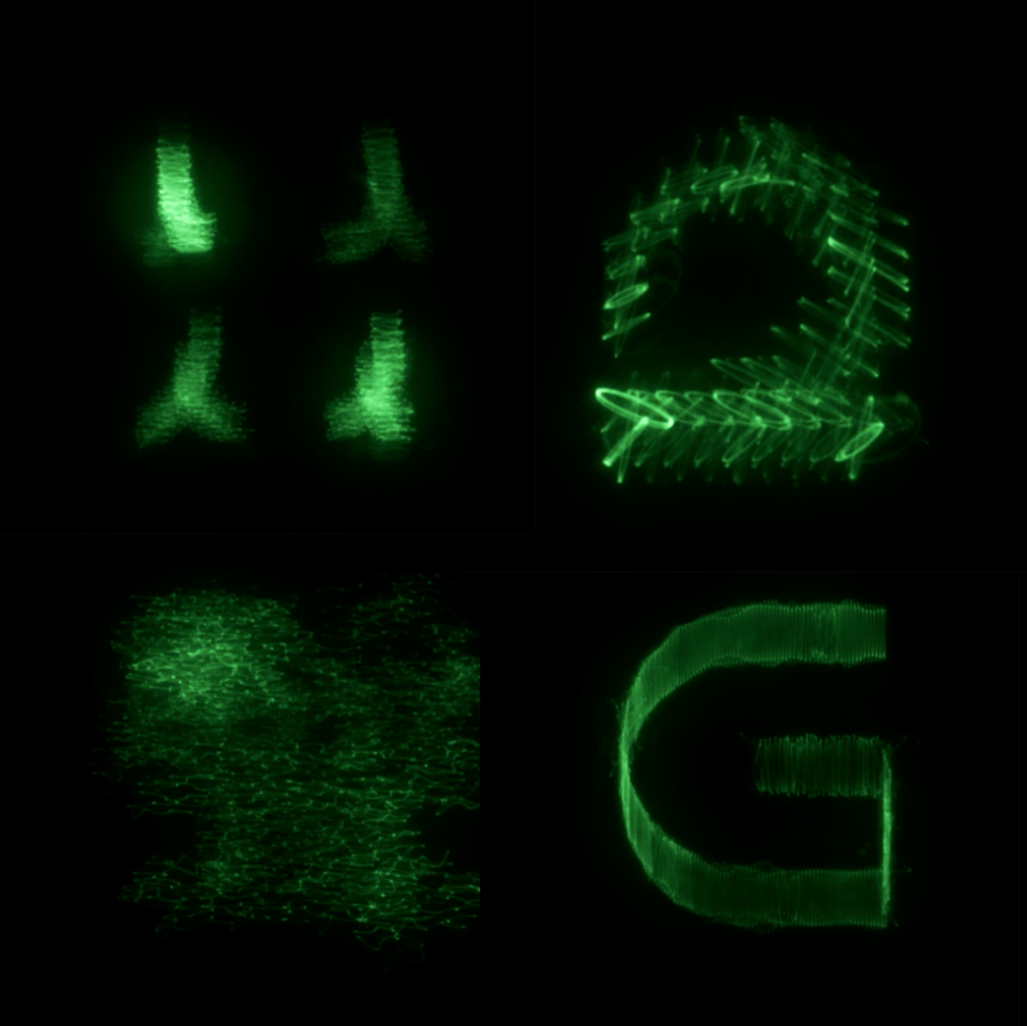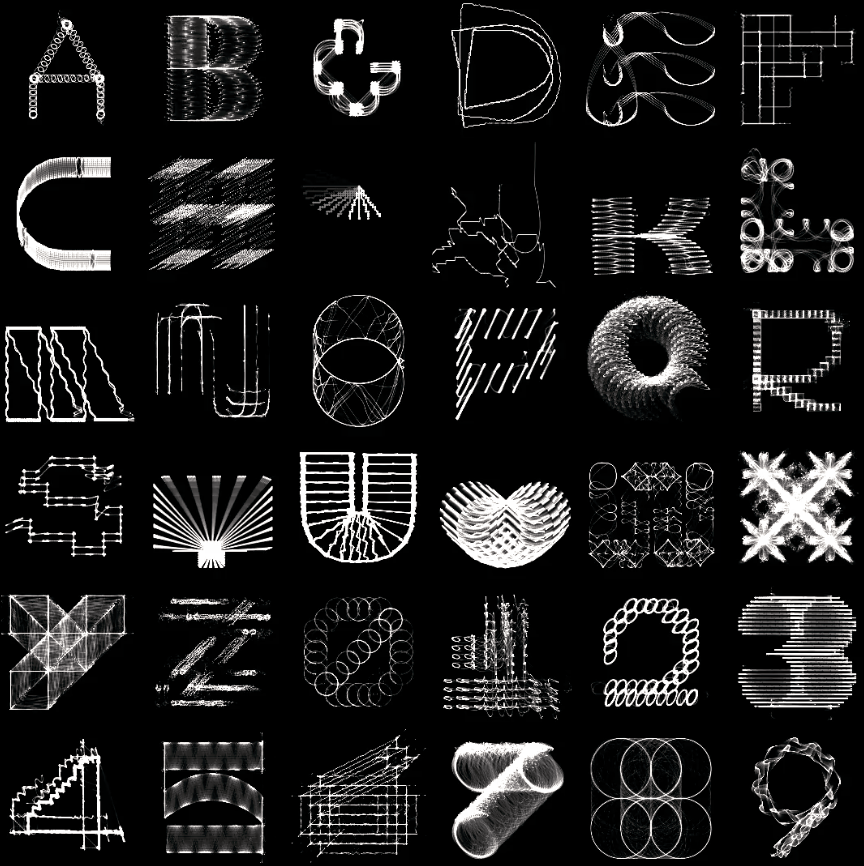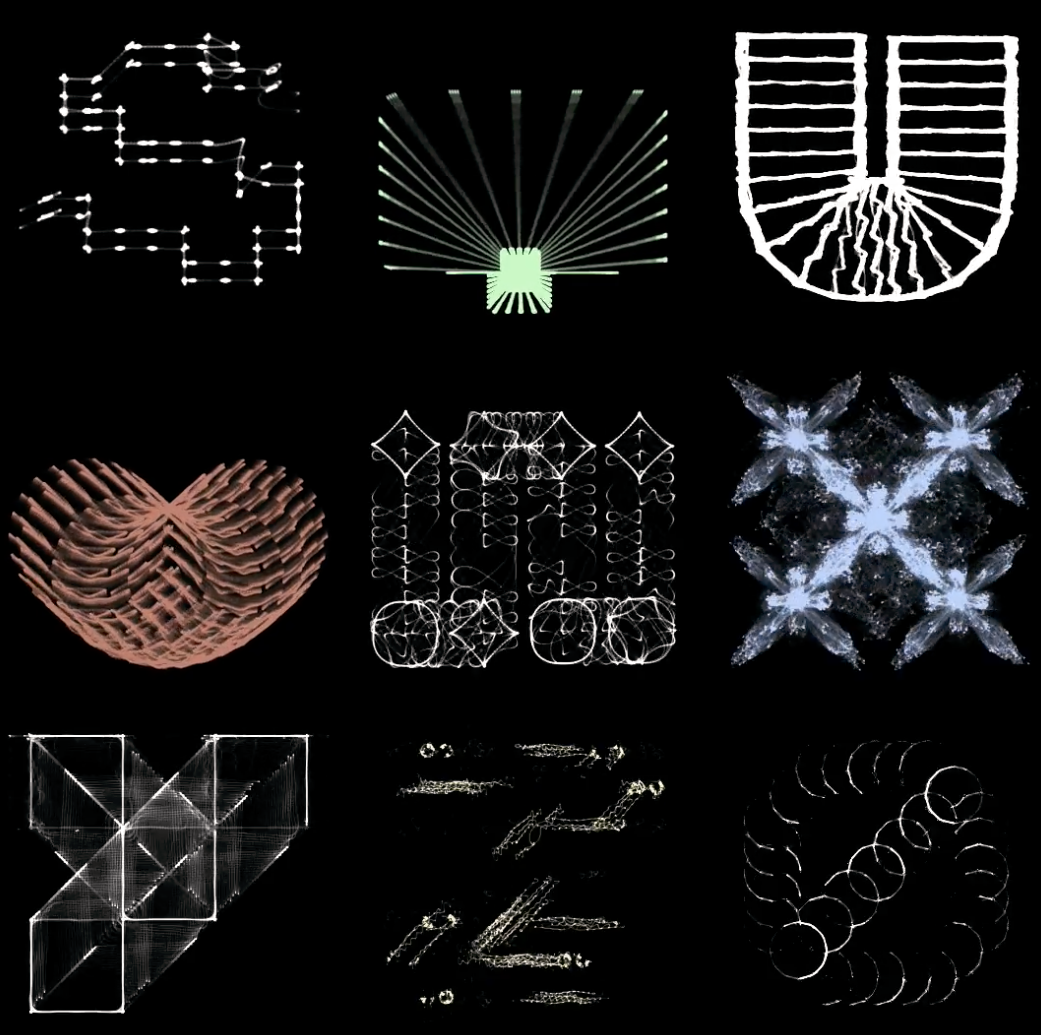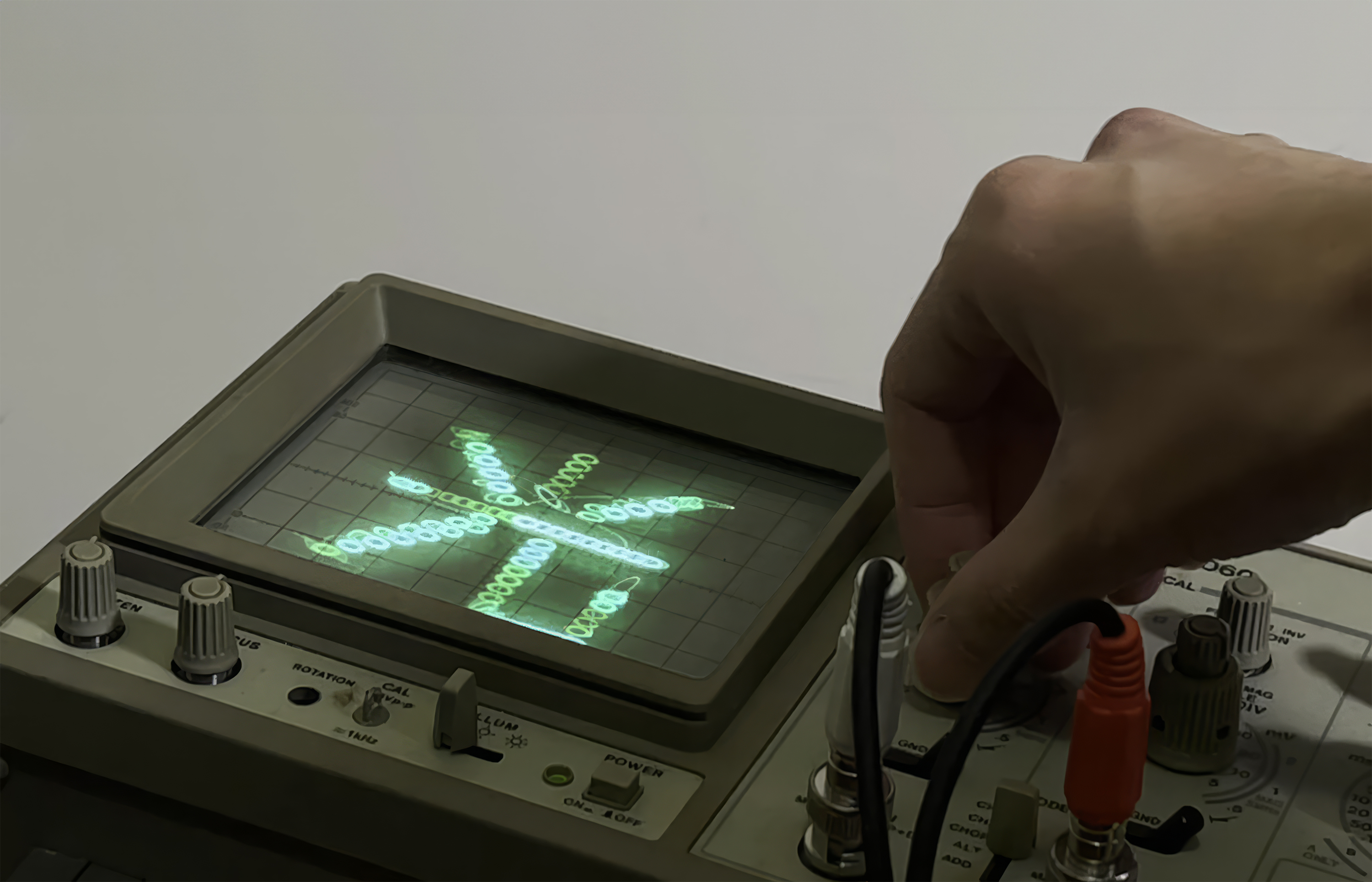
Blending Sound and Typography: The Art of Jonathan Mak
Jonathan Mak is a graphic designer hailing from the vibrant city of Hong Kong, where his creative projects stretch across branding, publication design, and multimedia art. His ability to seamlessly blend mediums and push the boundaries of traditional design makes him one of the most intriguing voices in contemporary visual culture.
One of his standout projects is the ongoing series “Sound Type”, which masterfully fuses his passions for sound, motion, and typography into something uniquely engaging. This project invites viewers to experience language not just as visual communication, but as a multi-sensory experience that resonates on multiple levels, combining the abstract beauty of type with the physicality of sound waves.
Mak's versatility extends beyond this signature work. By day, he designs motion-based video games at Nex, a tech startup that thrives on innovation and cutting-edge creativity. His practice exists at the intersection of play and precision, allowing him to explore the dynamic possibilities of motion and interactivity in both his professional and personal works. This duality of digital design and artistic experimentation has earned him recognition across the global design landscape, with accolades from the D&AD Awards, the prestigious Cannes Lions, and the Type Directors Club Awards, among others.
In this interview, we delve into the inspirations behind “Sound Type”, his thoughts on blending disciplines, and how his work at Nex informs his broader artistic vision. We also explore how growing up in Hong Kong, a city of constant reinvention, has shaped his approach to design and innovation. Join us as we uncover the layered world of Jonathan Mak, a designer whose work challenges the boundaries of typography, technology, and sound.
TR: “Sound Type” seems to beautifully merge your interests in sound, motion, and typography. Can you walk us through the inspiration behind this ongoing series and what you hope viewers experience through it?
JM: Sound Type uses audio waveforms to draw letters and graphics on an oscilloscope, a piece of equipment that displays electrical signals. It’s a medium used by musicians and artists to create audiovisual art, but seldom applied to a graphic design context, which was what inspired me to try. The idea of giving shape to what we hear draws an interesting connection to typography, which is about making language visible. The project experiments with different ways of transforming the written word through distorting sound, and explores the relationship between our eyes and ears. What you see is what you hear.
TR: Your work spans branding, publication design, and multimedia art. How do you balance such a wide range of creative outlets, and do you find that they influence one another in unexpected ways?
JM: As designers, we’re often told that we should adapt to each project’s needs, and not bring too much of ourselves into the work. While that’s true to a certain extent, I don’t think it’s a bad thing to acknowledge our own visual sensibilities, and embrace our stylistic tendencies when the situation calls for it. As I worked on different projects throughout the years, I can see myself developing a vocabulary that spans across different formats. In the case of Sound Type, a project heavily based on motion and audio, the rhythm of sound inspires me to reinterpret that into a different kind of visual rhythm when doing printed work. Regardless of the discipline or medium, I’d like to think there’s an underlying energy throughout my projects, just expressed in different ways.
TR: You’ve received recognition from prestigious institutions like D&AD and the Cannes Lions. What impact do these accolades have on your creative process, and do they drive you to explore new artistic directions?
JM: I was very fortunate to be awarded the Cannes Lions Grand Prix at a pretty young age, thanks to my Coca Cola project with advertising legend Graham Fink. While I was at Cannes, this was a piece of advice I got from an industry veteran: «You just got an award that some people spend their whole life chasing, and you’re just 20 years old. Be careful, or it might feel like it’s all downhill from here». As grateful as I am for the recognition I’ve been given, rather than thinking about how awards could affect our creative process, perhaps that was a reminder that they shouldn’t. For the sake of our work as well as our sanity.